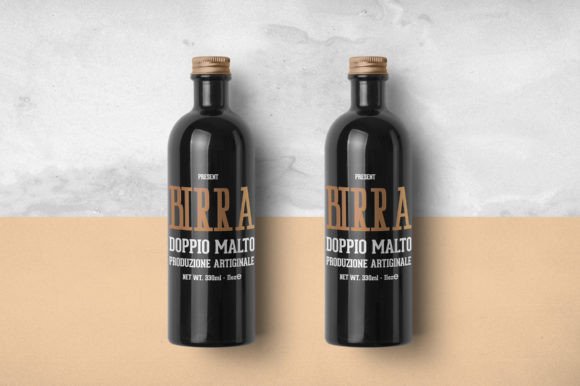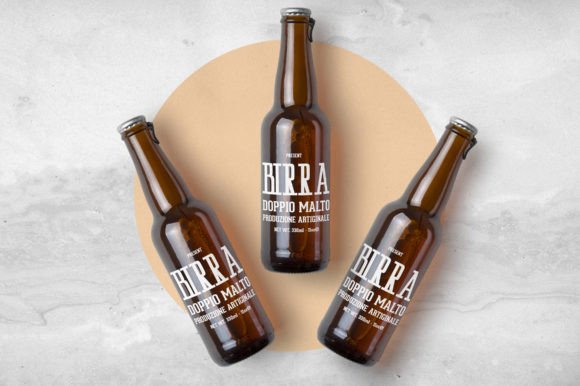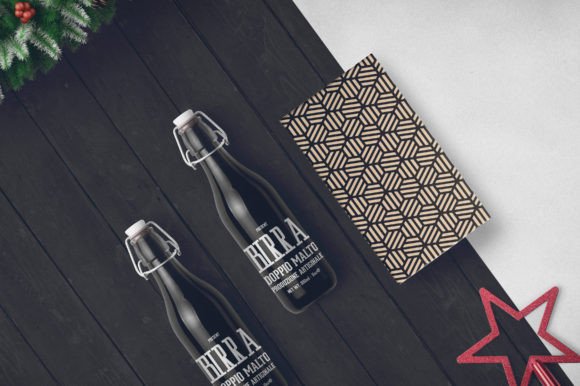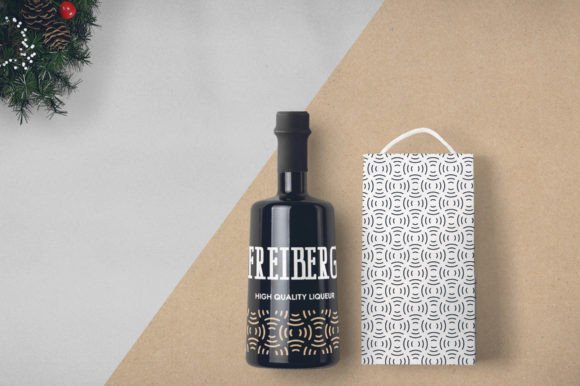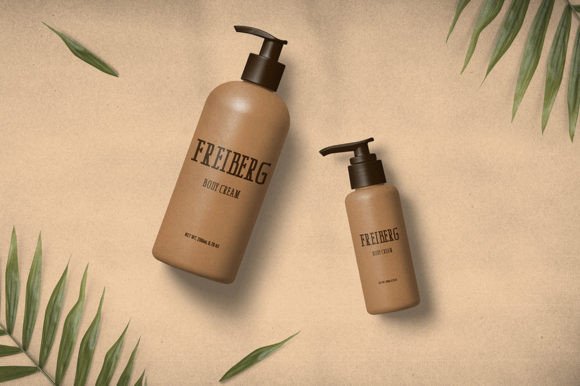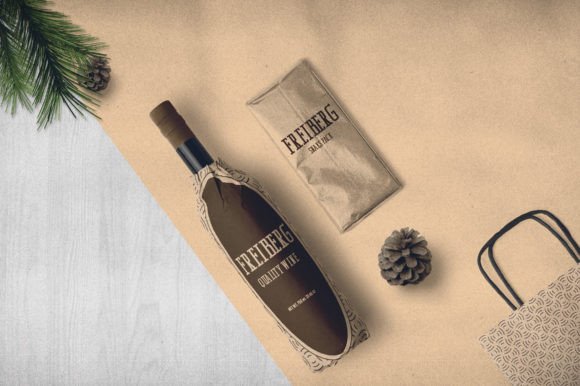
Freiberg Font
FREIBERG FONT SPECIMEN
Freiberg is a wonderful tall and condensed slab serif typeface. It can be used in a wide range of themes whether vintage or modern. This font will give a huge value to your creations. It can be used in packaging design, alcohol drinks packaging, label design, posters, social posts, and many more. Add it to your most creative ideas and notice how it makes them come alive!